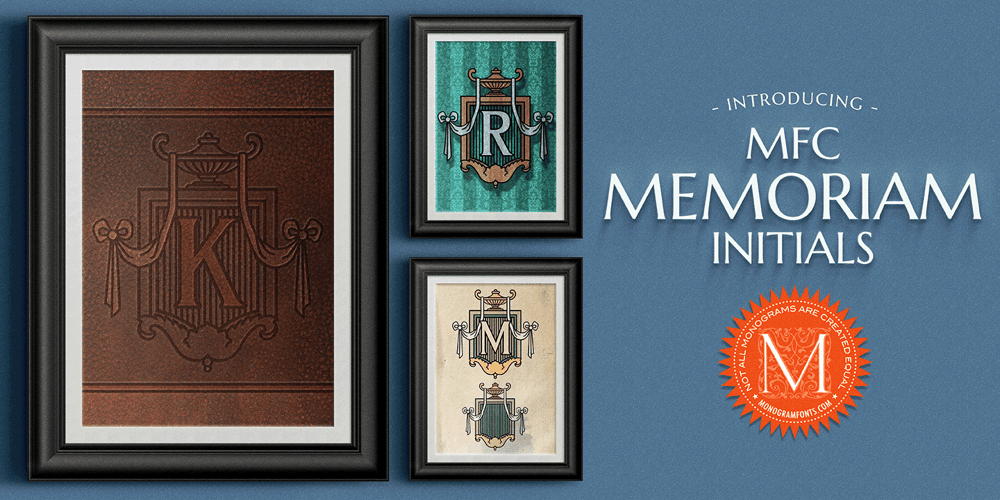
MFC Memoriam Initials Font Family was designed by Brian J. Bonislawsky and published by Monogram Fonts Co.. MFC Memoriam Initials contains 4 styles and family package options. The inspiration source for Memoriam Initials is the 1934 Book of American Types by American Type Founders. In that specimen book, they had created a sophisticated two color initial design they called “University Initials” which was only available in metal type at 24, 36, and 48 points. This wonderfully detailed initial style is now digitally recreated and revived for modern use. Memoriam Initials is only capable of initial or single letter monograms due to its unique design. The two color aspect of the original design has been preserved and made accessible within all programs. The Capital character slots contain the background color glyphs, and the lowercase slots hold the outline art for the letters. You can choose a color, type a capital letter, then switch to black and type a lowercase letter for the two color effect, or just type a lowercase letter on its own. It’s that easy! Download and view the Memoriam Initials Guidebook if you would like to learn a little more.